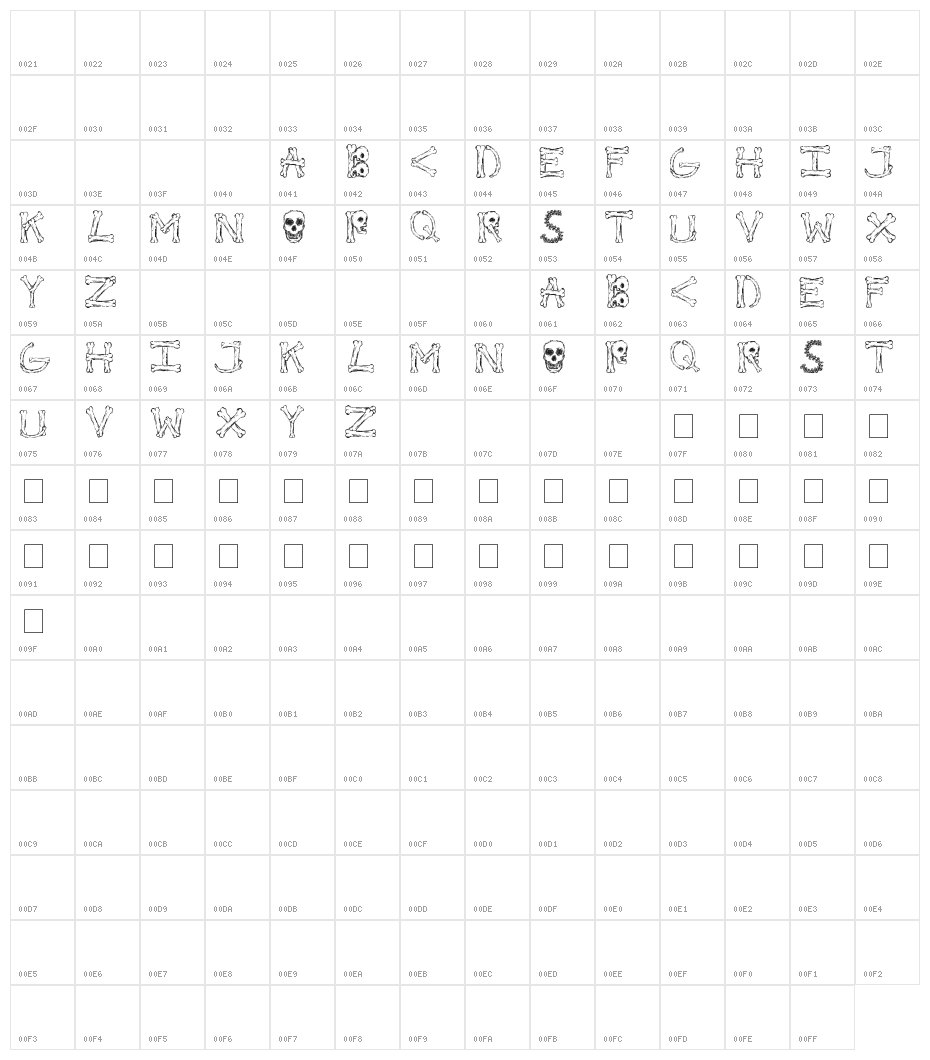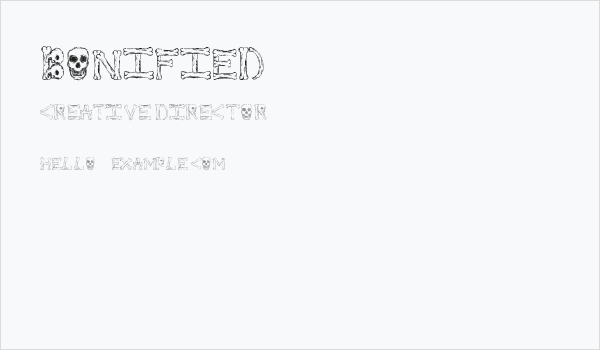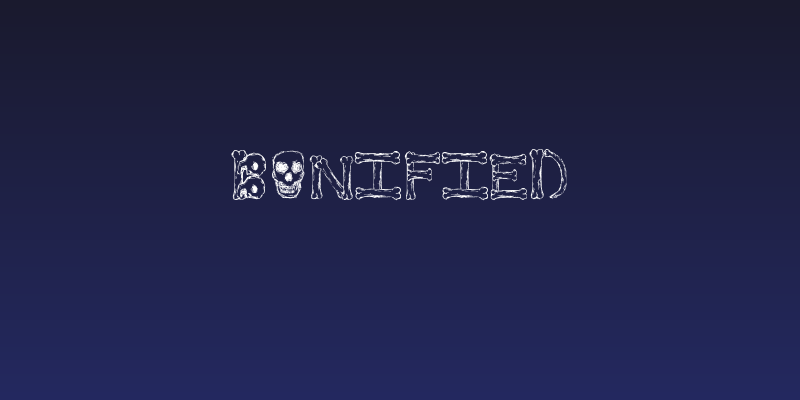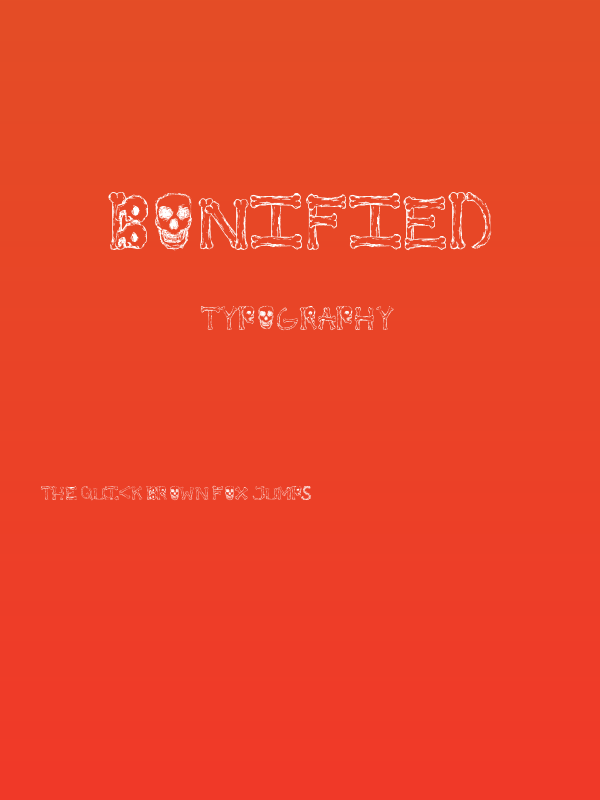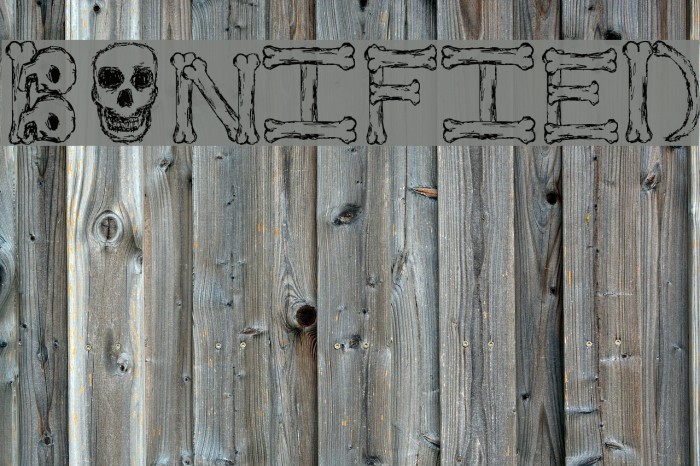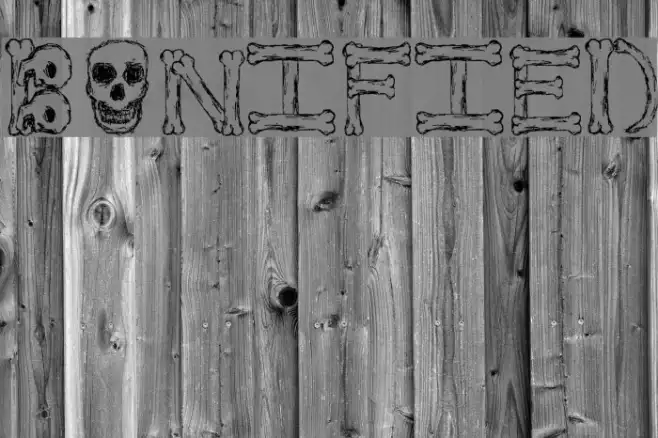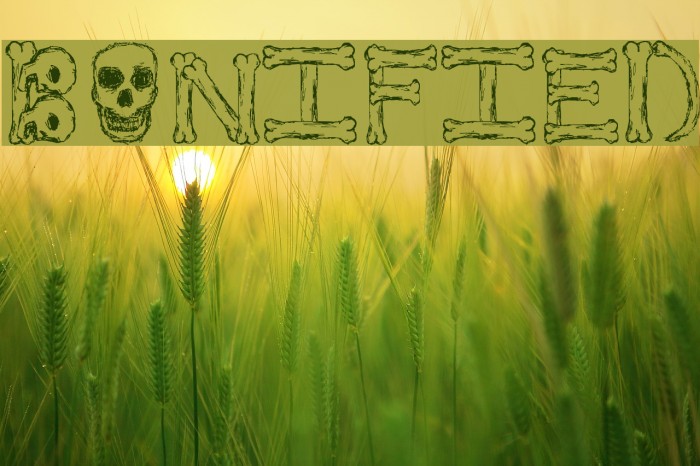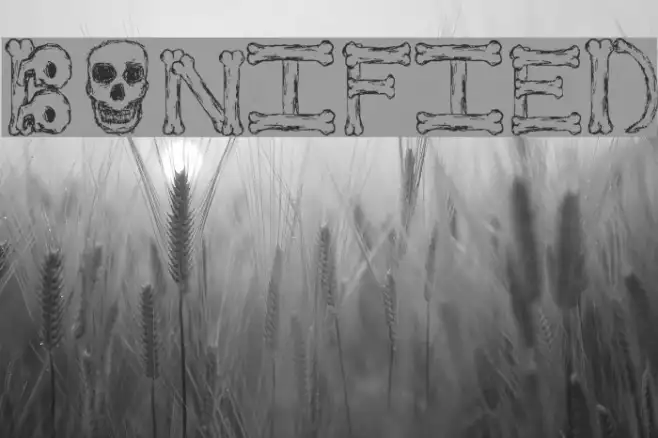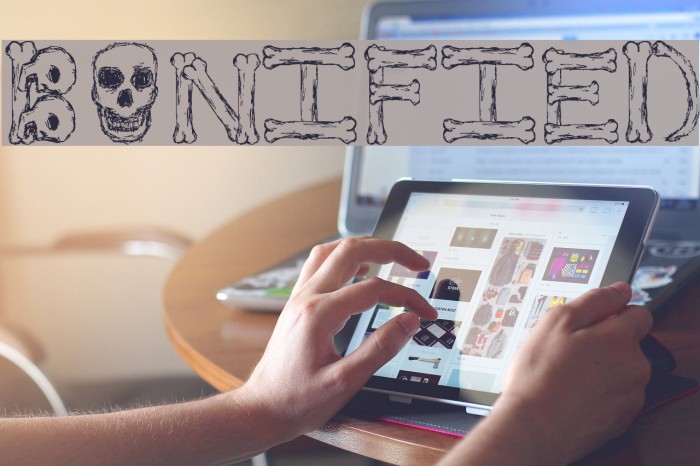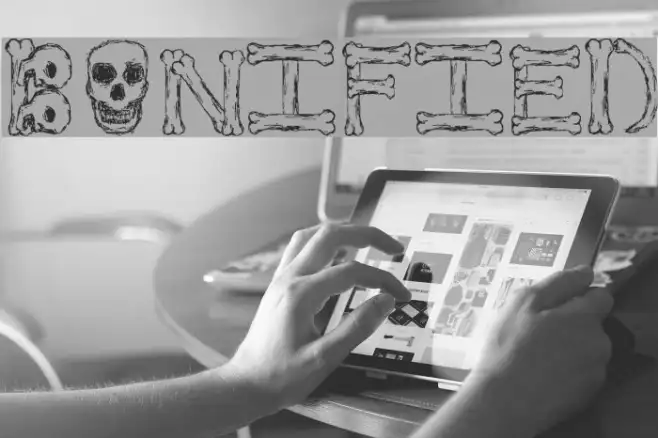
Bonified Font
Bonified Description
This font features a unique and playful design where each letter is crafted to resemble bones, giving it a skeletal appearance. The characters are creatively formed with bone-like structures, including skulls for certain letters, adding a spooky and whimsical touch. The font is highly decorative, making it ideal for themed projects, particularly those related to Halloween or horror genres. The intricate detailing in each letter adds to its charm, making it stand out as a display font. Its distinctive style is both eye-catching and memorable, perfect for creating a strong visual impact.
| Proposed Projects | Halloween invitations, horror movie posters, themed party decorations, spooky event flyers. |